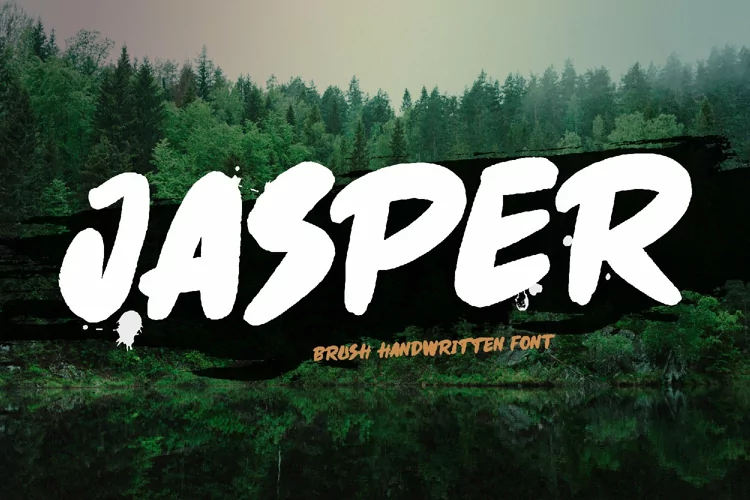
Jasper is a cool brush display font, featuring a street art vibe. This font is suitable for designs such as t-shirts, logos, advertisements, clothing, and more.
Jasper